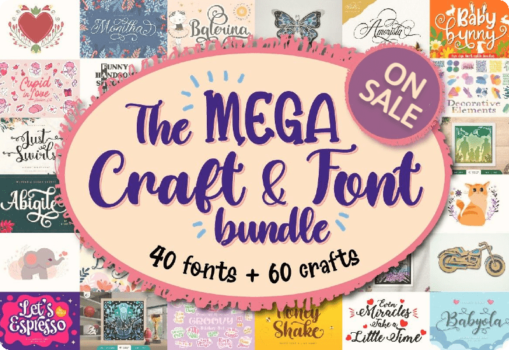
The Mega Craft & Font Bundle is a must-have for any crafter’s design library. With 60 amazing craft designs and 40 premium fonts, you’ll have all the tools you need to create beautiful projects.
The craft designs include high-quality illustrations, sticker sets, quotes, layered designs, and shadow boxes, while the fonts feature script, display, and more. The Mega Craft & Font Bundle is a great way to add beautiful and versatile fonts and craft designs to your design library.